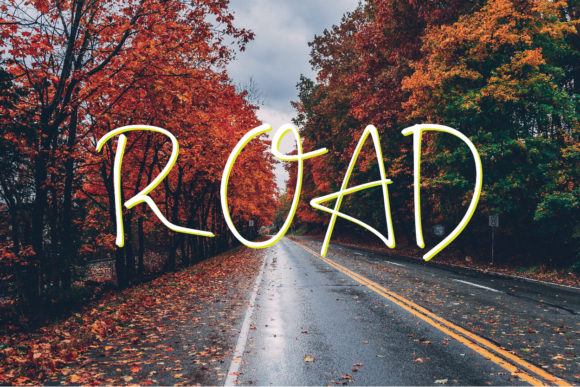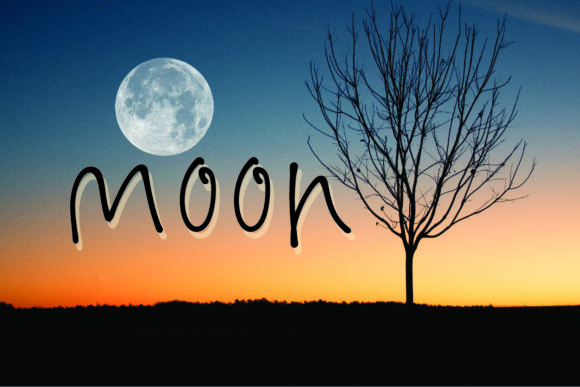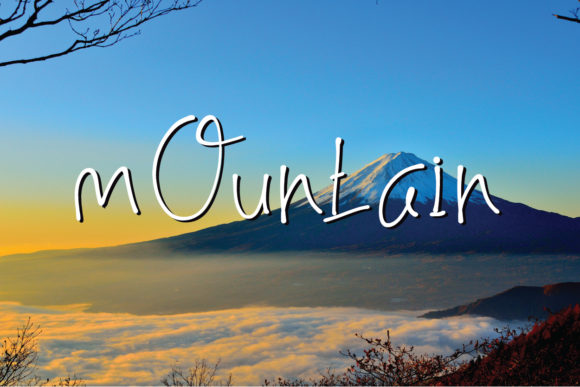
About The City Font
The City is a sweet and friendly handwritten font. Its natural and unique style makes it incredibly fitting to a large pool of designs.